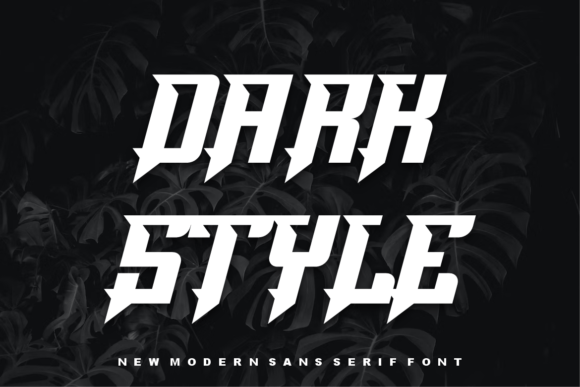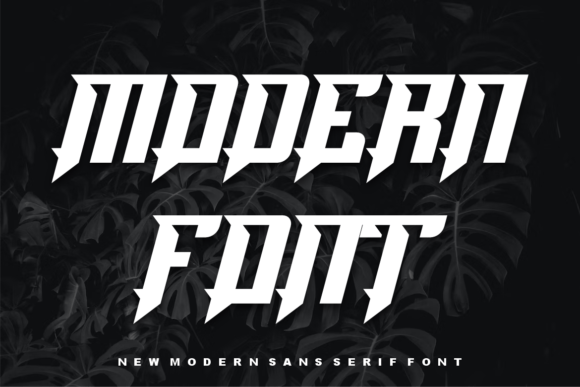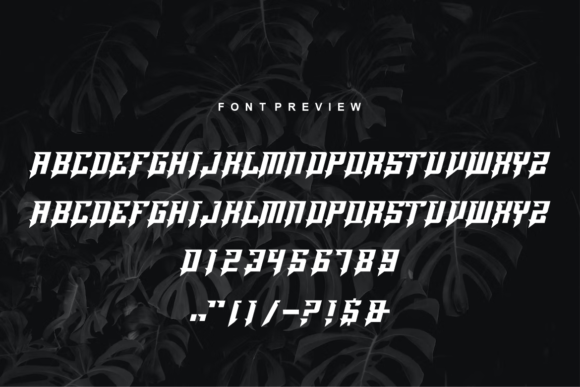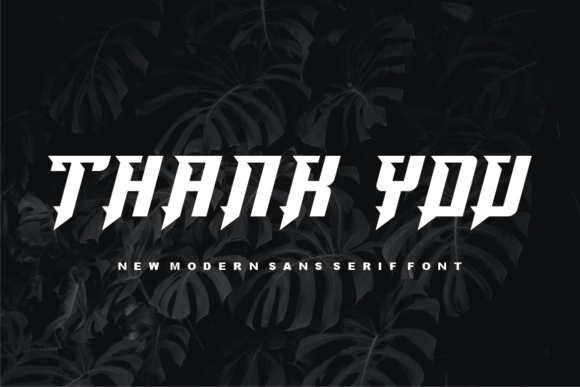
Introduction to Rogesor Font
Rogesor is a display font with a touch of classic blackletter style.
It combines bold, eye-catching letters with a hint of vintage charm, making it great for headlines and stylish designs .